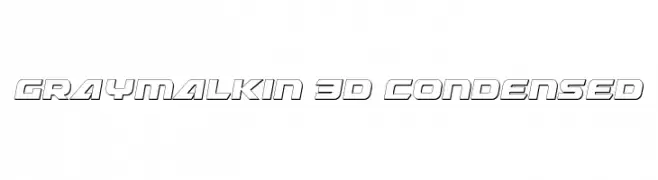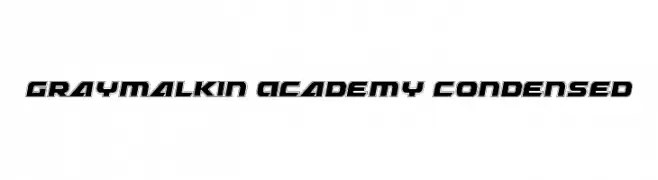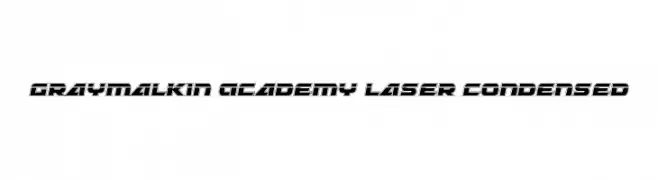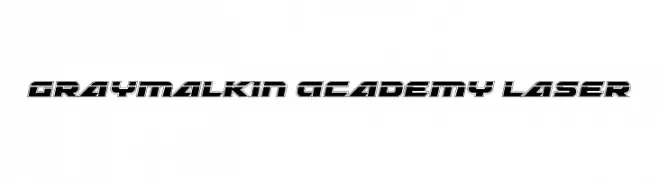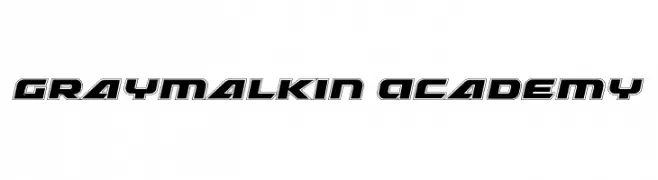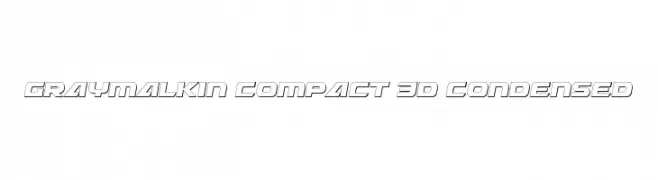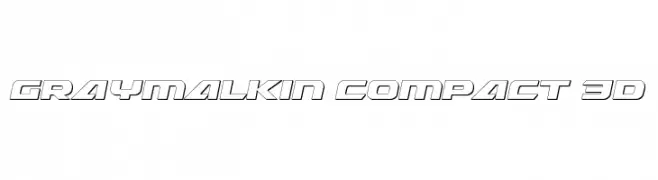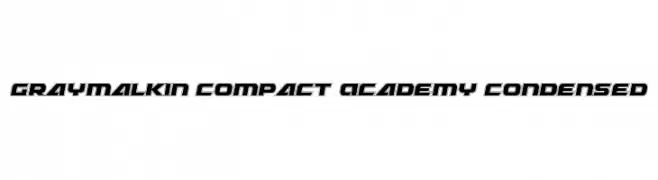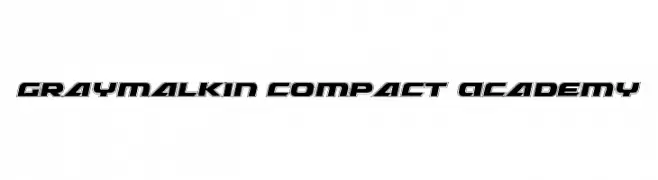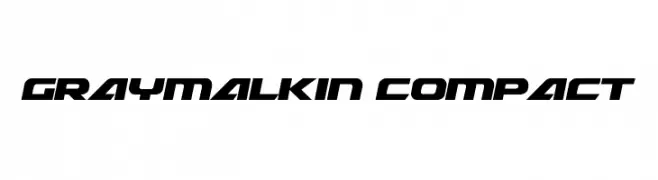
A bold, 3D condensed font with a futuristic and geometric style.
A bold, futuristic font with geometric and three-dimensional elements.
A bold, futuristic font with geometric, condensed characters and strong outlines.
A futuristic, bold font with a laser-cut, three-dimensional appearance.
A futuristic, bold, and condensed font with a double-line outline effect.
A bold, futuristic font with angular, geometric shapes and a dynamic slant.
A bold, 3D-effect font with a futuristic and geometric design.
A bold, 3D, condensed font with a modern and dynamic style.
A bold, geometric font with a futuristic and three-dimensional style.
A bold, geometric font with outlined characters and a futuristic style.